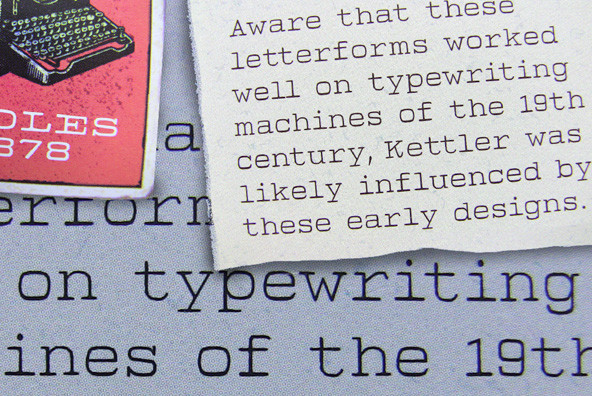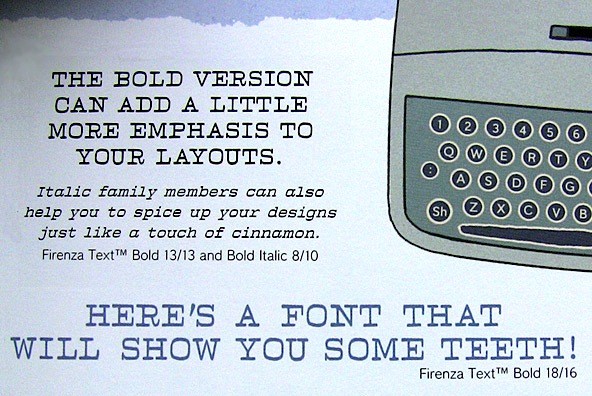
The Firenza™ fonts are based on a design that was in use at the turn of the 19th century. While the character shapes resemble those that became common on typewriters through the second half of the 20th century, it is interesting to note that these designs actually pre-date Courier by more than 50 years.
THE TEXT FONTS
The Firenza Text™ fonts are condensed versions of the Firenza™ family, which are more suitable for setting text at smaller point sizes. You may want to use both families together or separately according to the project you are working on. The text fonts very nicely mimic the style of typewritten text.
FULL CHARACTER SET
Each font in the Firenza™ family has a full character set of 232+ letterforms, with all characters designed in the style of the font. Some fractions and the Euro symbol are also included.